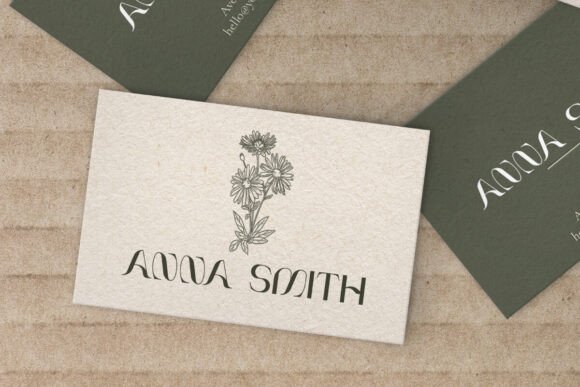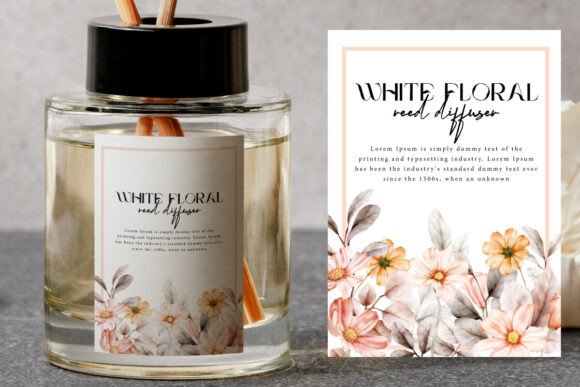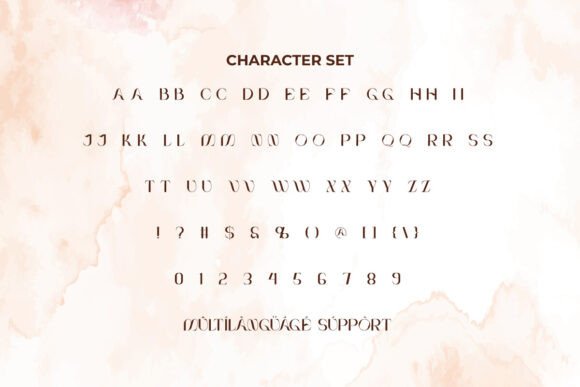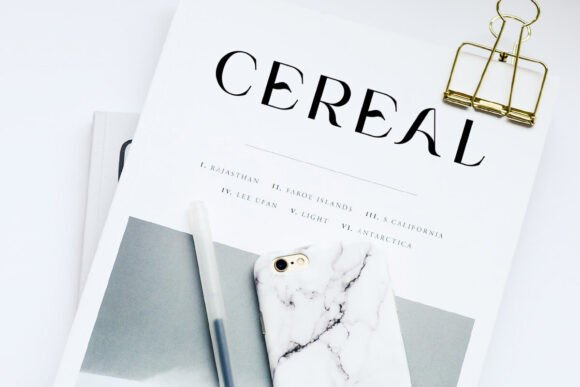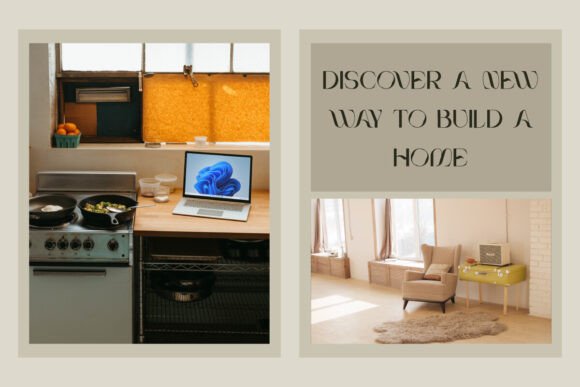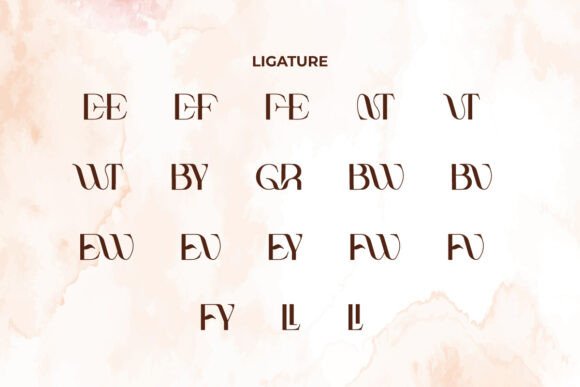
Introducing Great Falls Font: Elevate Your Designs with Elegance
Are you tired of using the same old fonts in your designs? Look no further than Great Falls Font, an elegant and stylish modern display font created by RaisProject. This beautiful font is perfect for designers and crafters looking to add a touch of sophistication to their work.
The Inspiration Behind Great Falls Font
Great Falls Font is inspired by the delicate shapes of autumn leaves, which are intricately combined with thin lines to create a unique and visually appealing design. Each letter in this font is carefully crafted to evoke the feeling of a crisp autumn day, making it perfect for designs that require a sense of elegance and refinement.
Features of Great Falls Font
- Elegant and Stylish Design: Great Falls Font boasts a modern and sophisticated design that is sure to elevate your designs.
- Delicate Autumn Leaf Shapes: Each letter in this font features delicate autumn leaf shapes, adding a touch of whimsy and charm.
- Thin Lines: The beautiful thin lines used in Great Falls Font add a level of refinement and sophistication.
- Versatile: This font is perfect for a wide range of designs, including advertisements, brand images, custom designs, greeting cards, invitations, magazines, menus, posters, product packaging, quotes, web pages, and more!
Uses for Great Falls Font
Great Falls Font is an incredibly versatile font that can be used in a variety of designs. Here are some ideas to get you started:
- Advertisements: Use Great Falls Font to create eye-catching advertisements that stand out from the crowd.
- Brand Images: Elevate your brand image with this elegant and stylish font.
- Custom Designs: Add a touch of sophistication to your custom designs with Great Falls Font.
- Greeting Cards: Create beautiful and elegant greeting cards for special occasions.
- Invitations: Use Great Falls Font to create stunning invitations for weddings, parties, and other events.
- Magazines: Add a level of refinement to your magazine designs with this beautiful font.
- Menus: Create elegant menus for restaurants, cafes, and other food establishments.
- Posters: Use Great Falls Font to create eye-catching posters for events, promotions, and more.
- Product Packaging: Elevate your product packaging with this sophisticated font.
- Quotes: Create inspiring and beautiful quote designs with Great Falls Font.
- Web Pages: Use this font to add a touch of elegance to your web pages and online designs.
Why Choose Great Falls Font?
There are many reasons why Great Falls Font stands out from the crowd. Here are a few:
- Unique Design: Great Falls Font features a unique and elegant design that is sure to set your designs apart.
- High-Quality: This font is created with high-quality craftsmanship, ensuring that it looks great in any design.
- Versatile: This font can be used in a wide range of designs, making it a great addition to any design library.
Great Falls Font is an elegant and stylish modern display font that is perfect for designers and crafters looking to add a touch of sophistication to their work. With its delicate autumn leaf shapes and beautiful thin lines, this font is sure to elevate your designs and set them apart from the crowd. Whether you’re creating advertisements, brand images, custom designs, or more, Great Falls Font is a great choice.